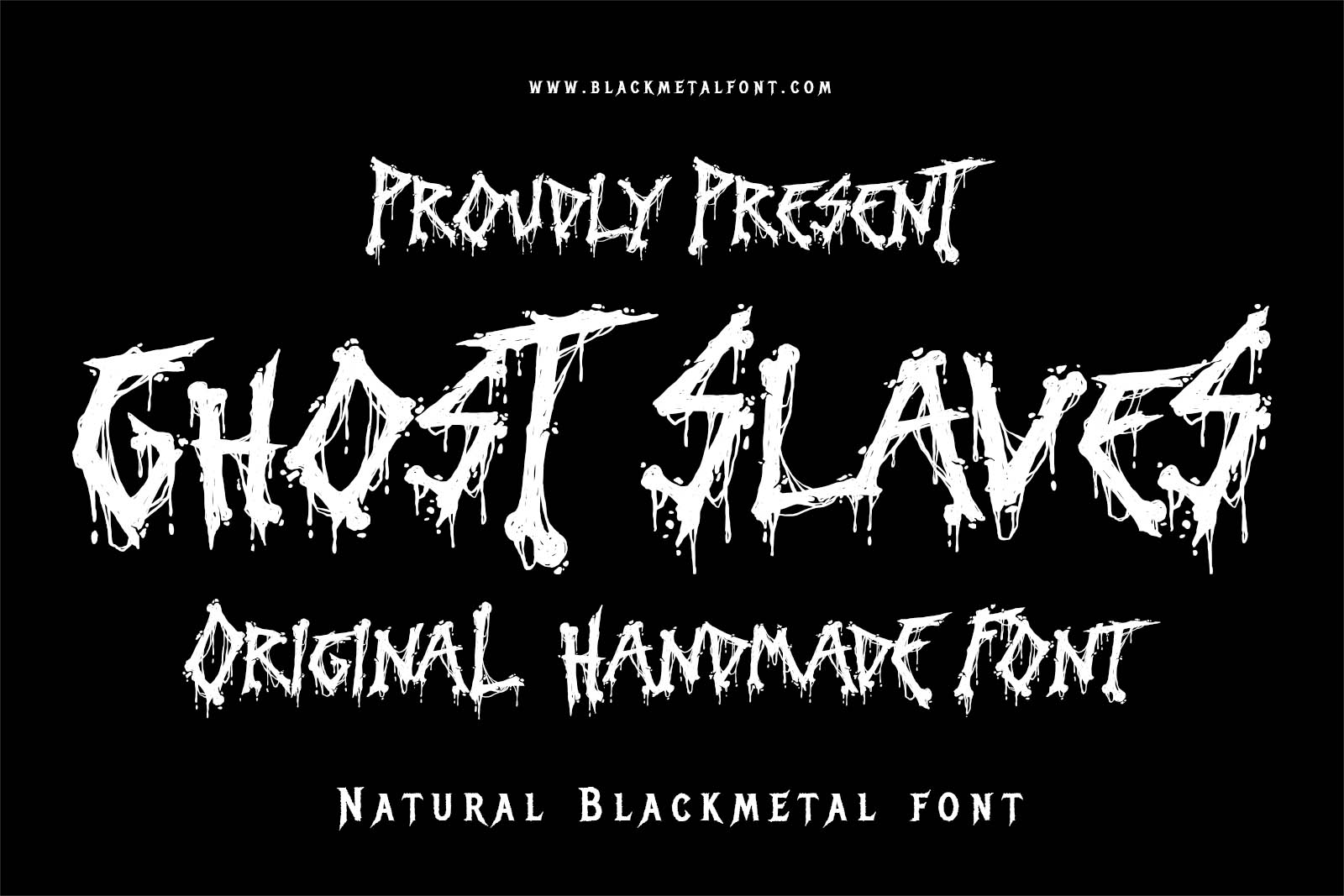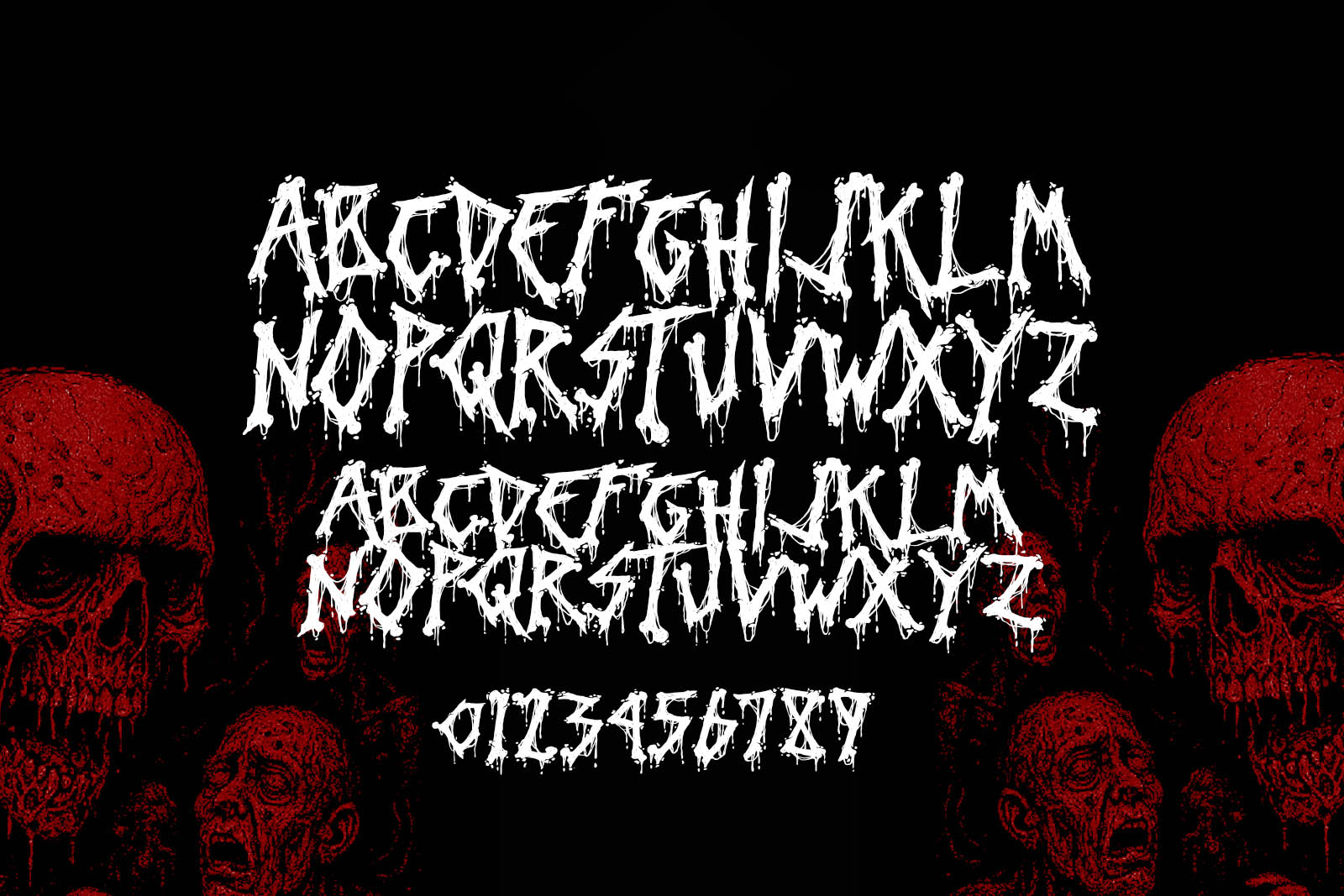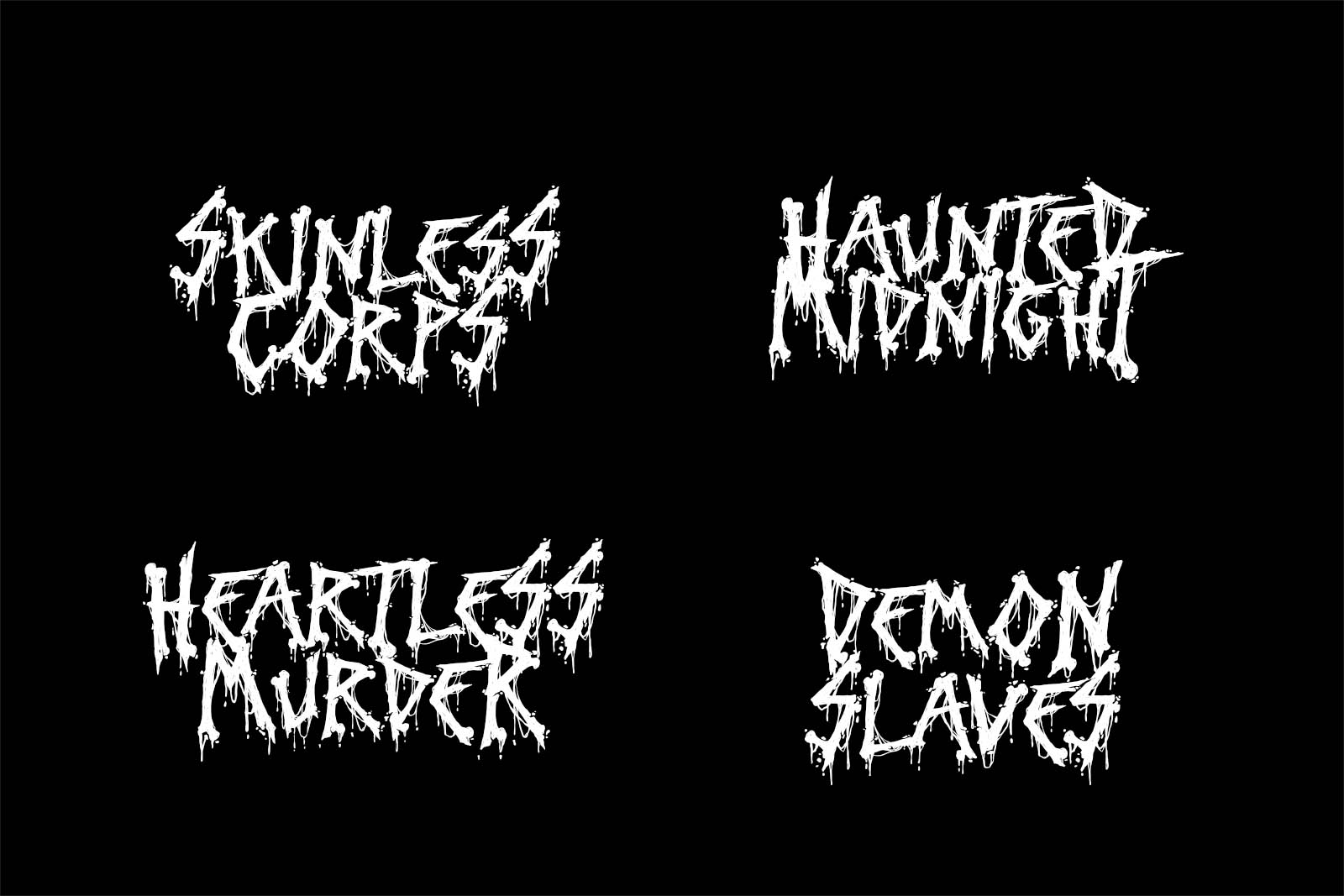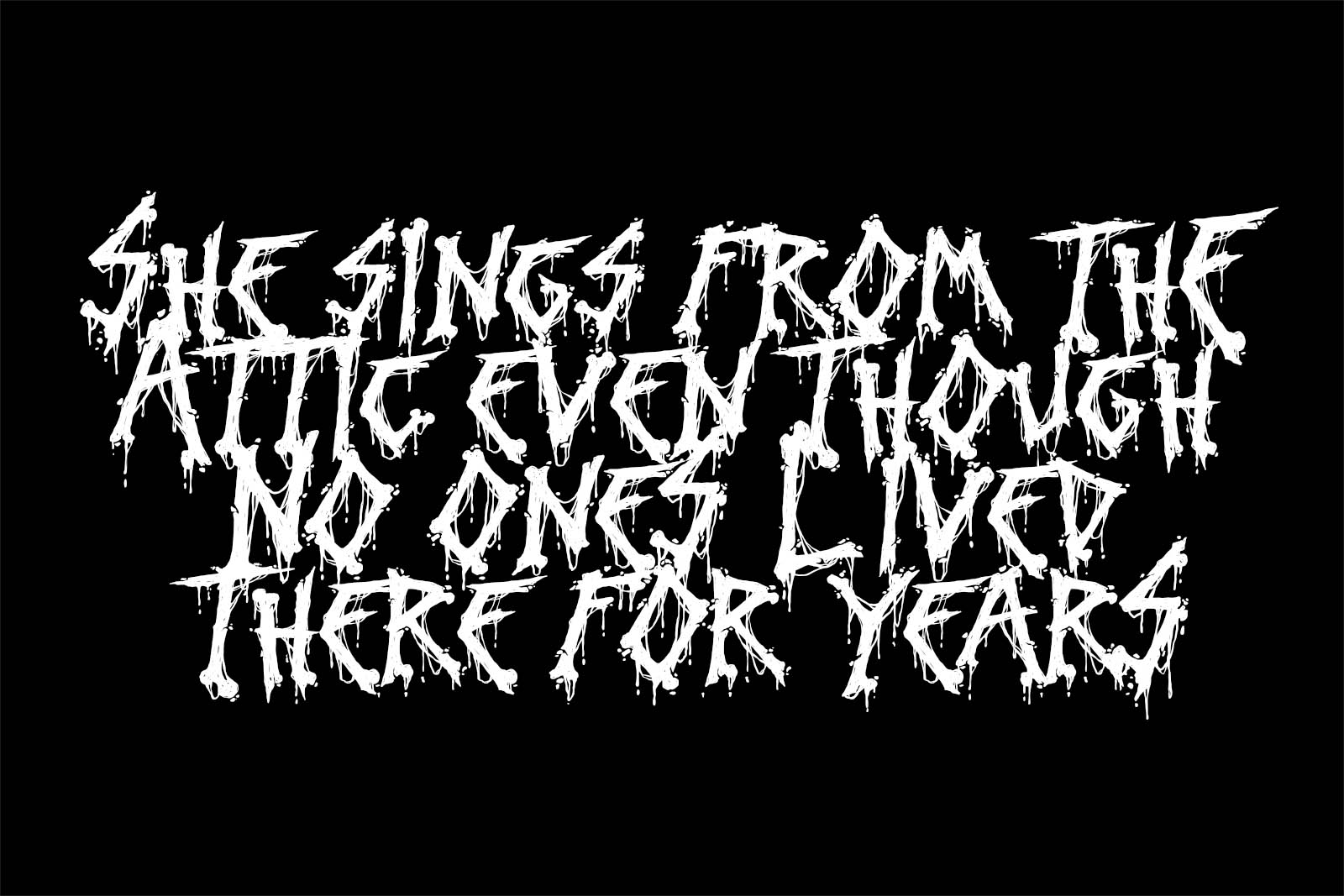
Ghost Slaves – Handmade Blackmetal Font
Ghost Slaves – Natural Handmade Blackmetal Font
Ghost Slaves is a naturally hand-drawn black metal font that bleeds with raw spirit and underground energy. Each letter looks like it’s been scratched onto the wall of an abandoned crypt—dripping, chaotic, and full of spectral intensity. This font captures the essence of old-school black metal aesthetics while remaining organic and easy to recognize.
Perfect for designers who want an original, handmade look with a dark soul. Whether you’re working on band logos, grim posters, or corpse-painted merch, Ghost Slaves gives your project a haunted, handcrafted feel with maximum blackened attitude.
Best for:
• Black metal band logos
• Underground horror zines
• Haunted poster art
• Grim festival branding
• Occult or paranormal-themed merch